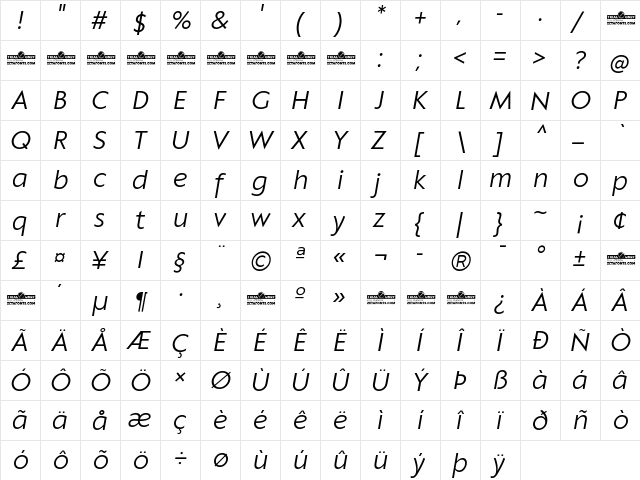
Klein Text Trial Book Italic
| Foundry | Cosimo Lorenzo Pancini & Francesco Canovaro |
| Designer | Cosimo Lorenzo Pancini & Francesco Canovaro |
Design Context for Klein Text Trial Typeface
Klein Text Trial is a composed and adaptable typeface that performs quietly and consistently across a wide range of design contexts. Its italic angle brings a sense of urgency and motion to the letterforms.